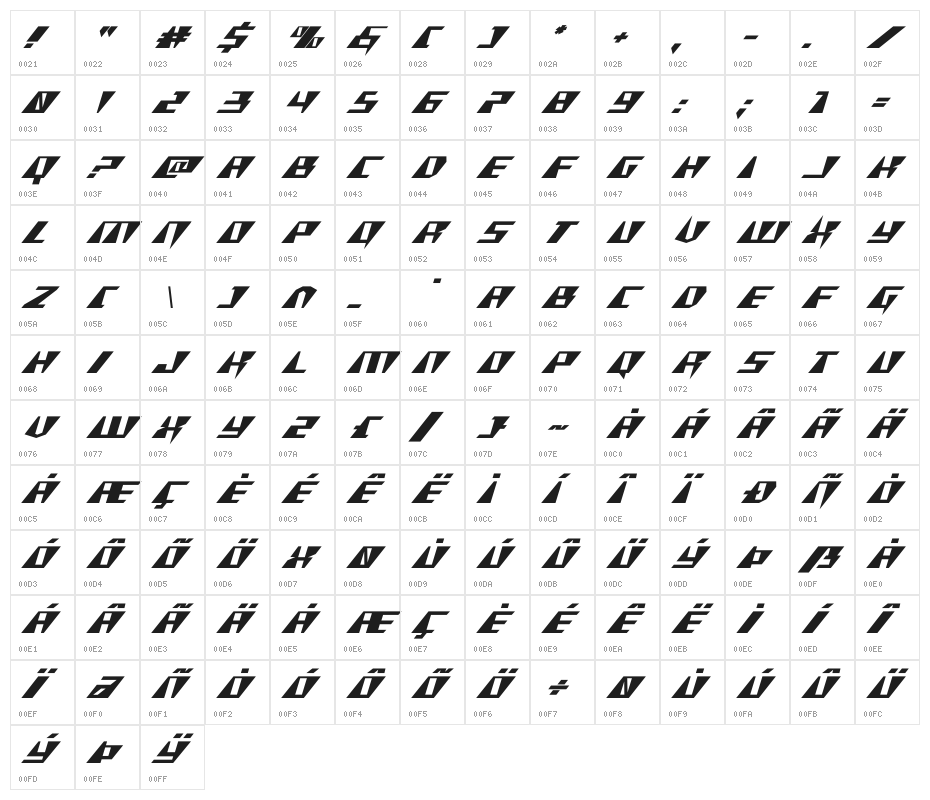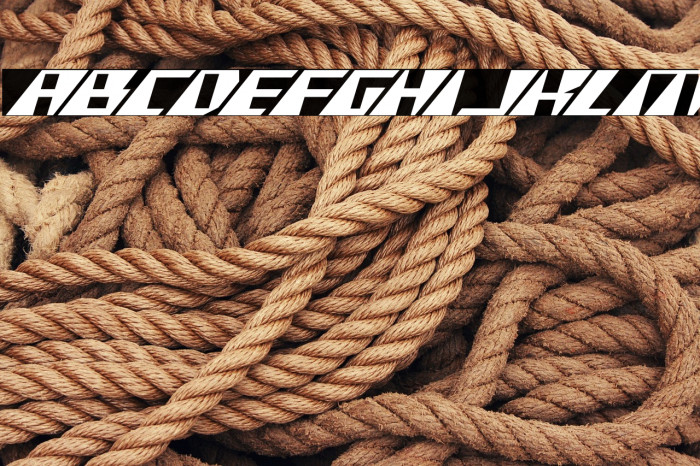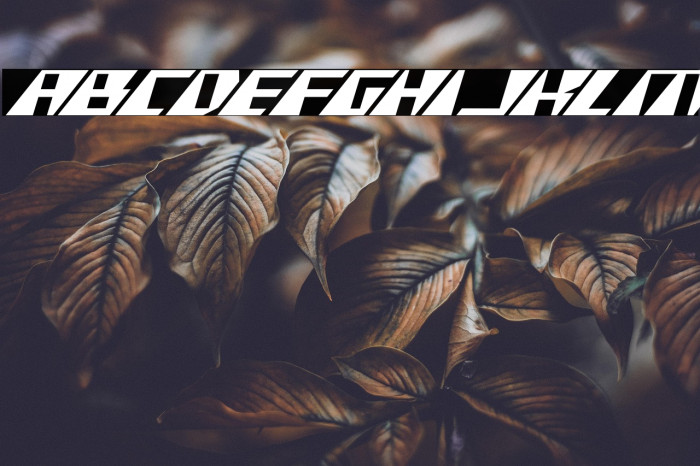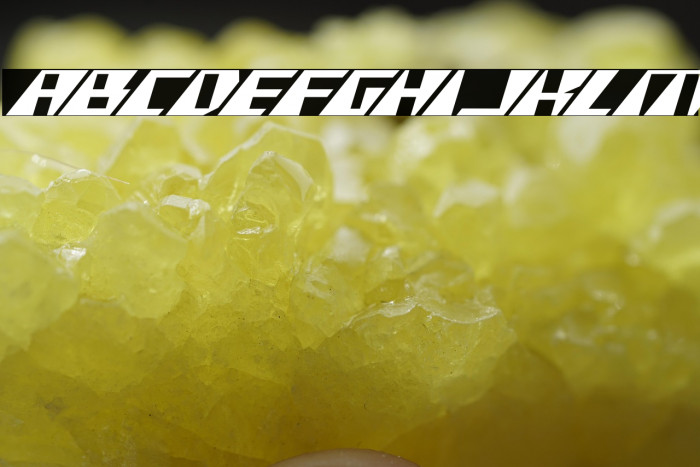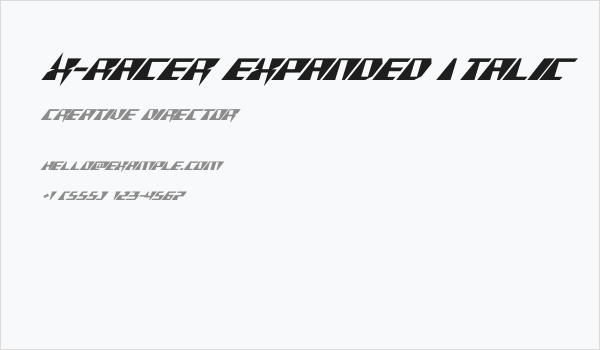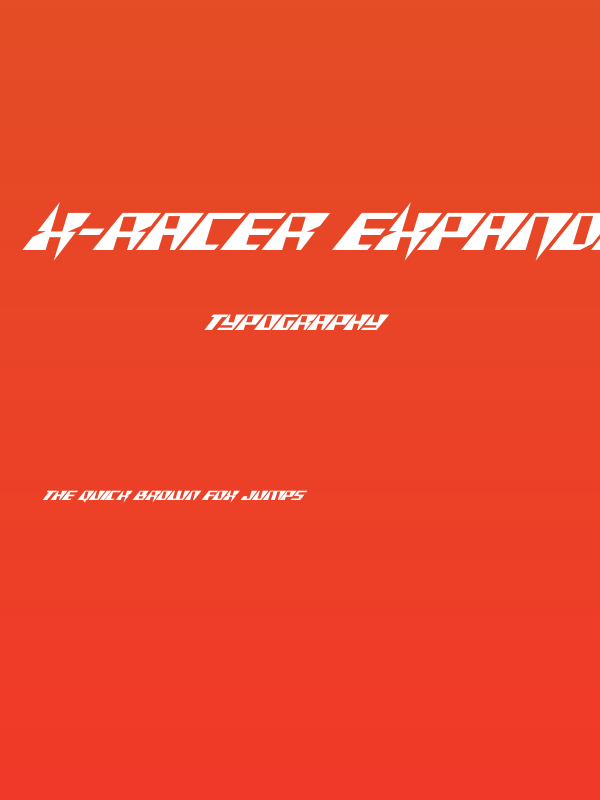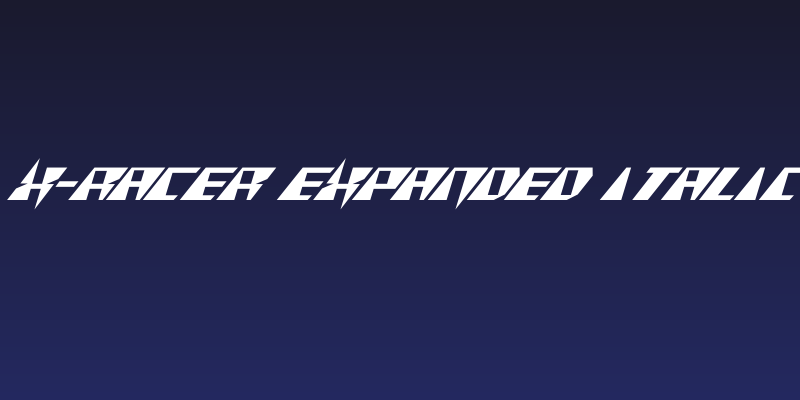
X-Racer Expanded Italic Font
| Kategorien | Futuristic |
| Breite | Expanded |
| Anwendungsfall | Logos, Headlines, Posters |
| Vorgeschlagene Projekte | Ideal for use in automotive branding, sports team logos, video game titles, and any project requiring a modern, high-energy aesthetic. |